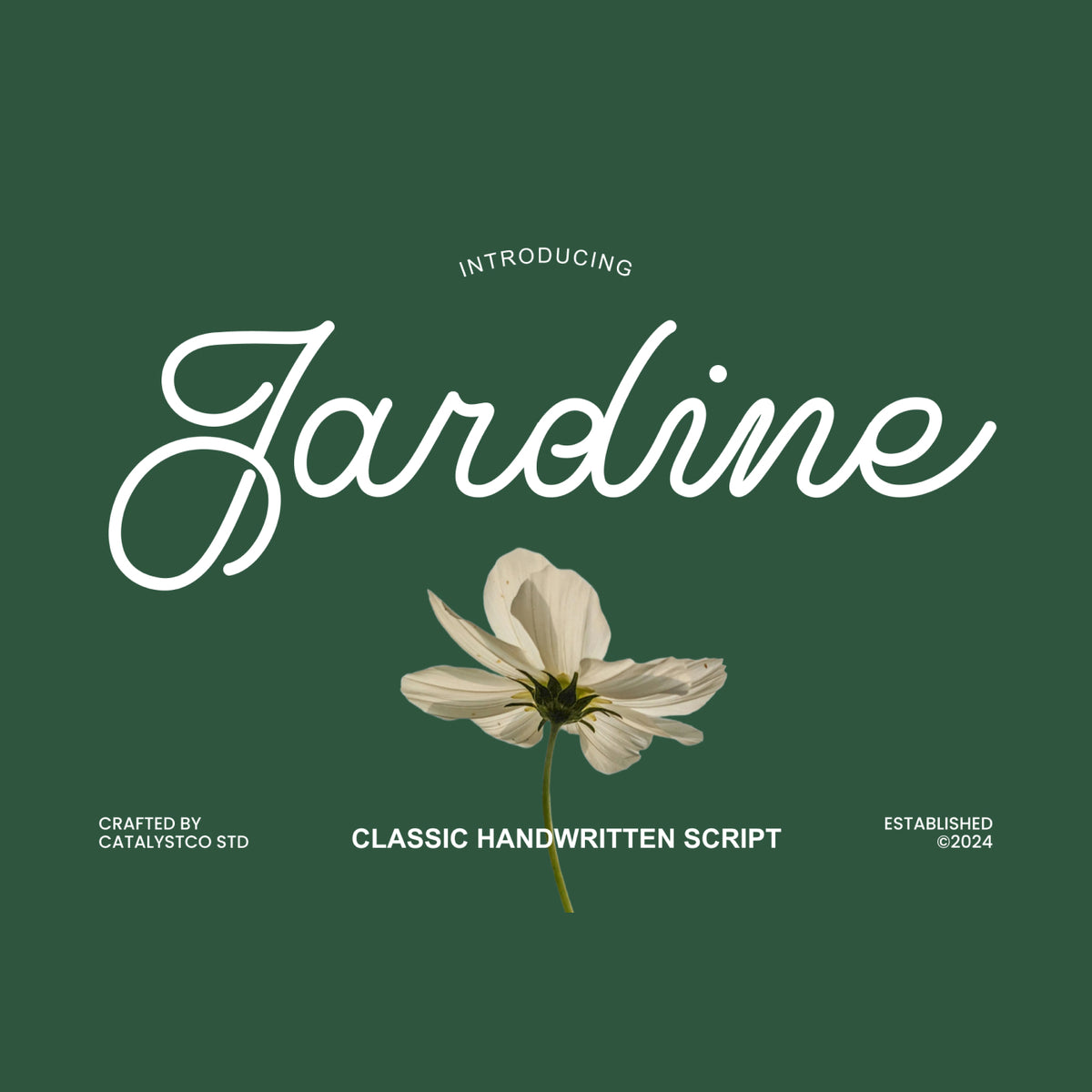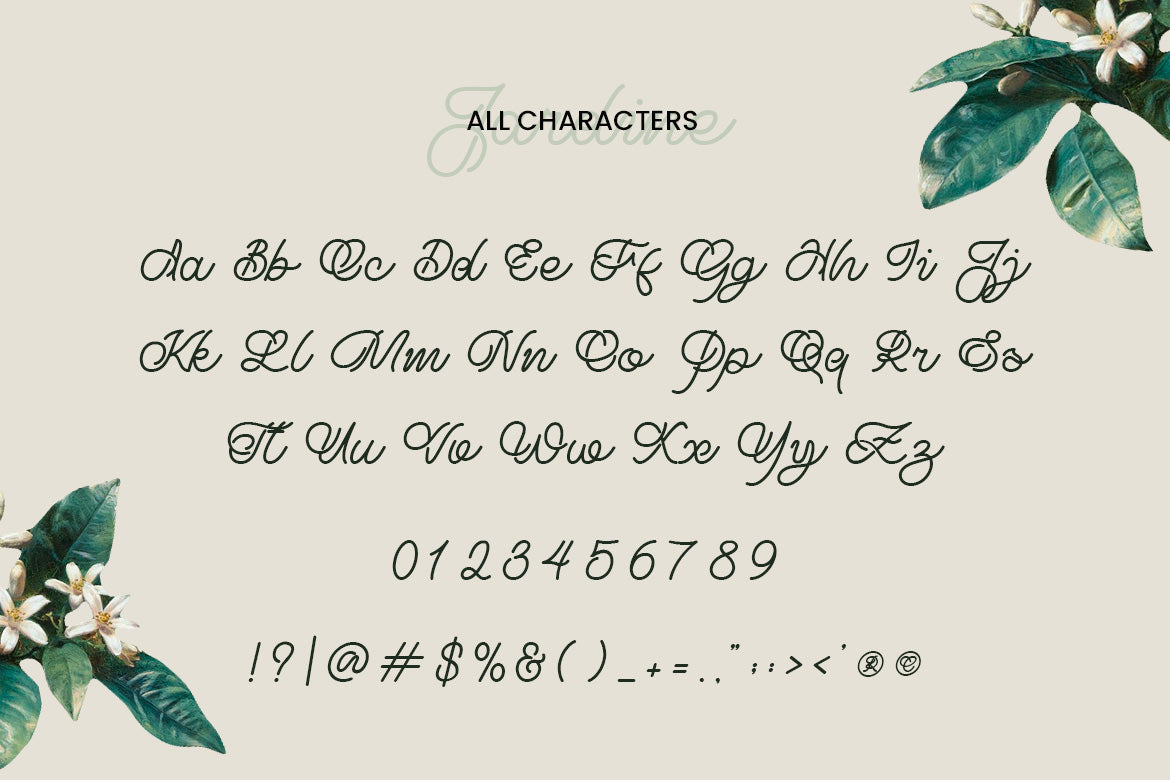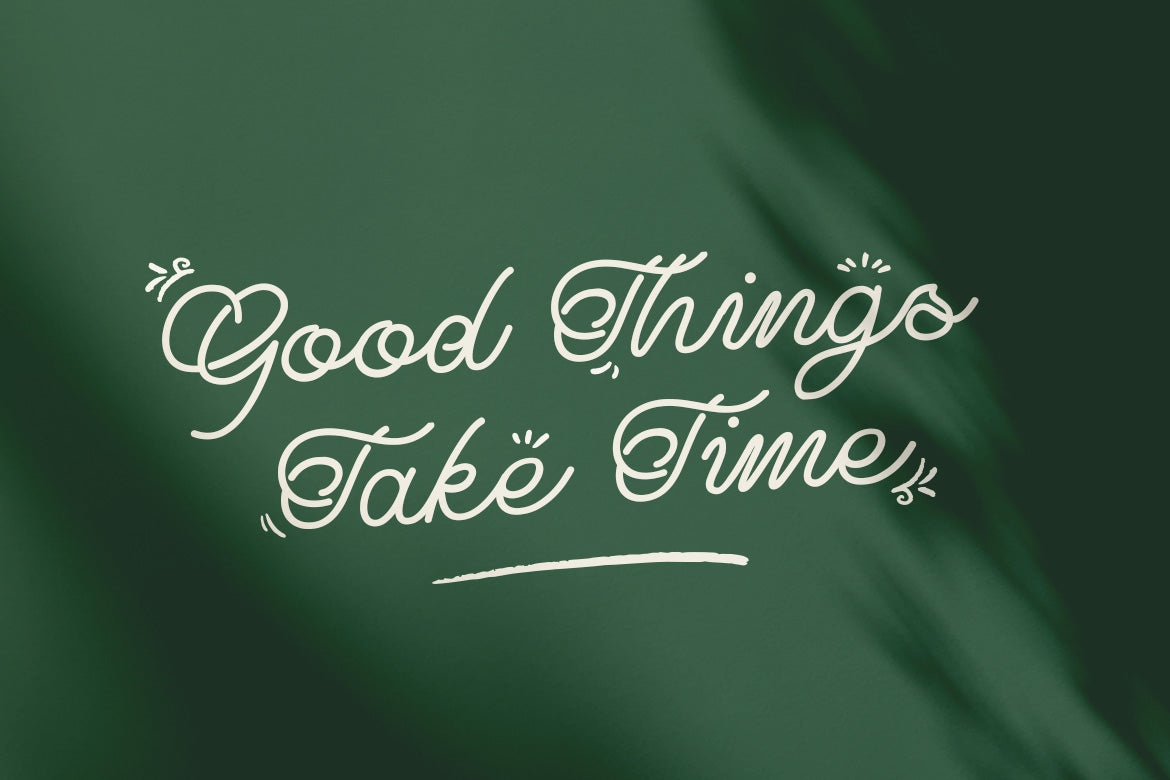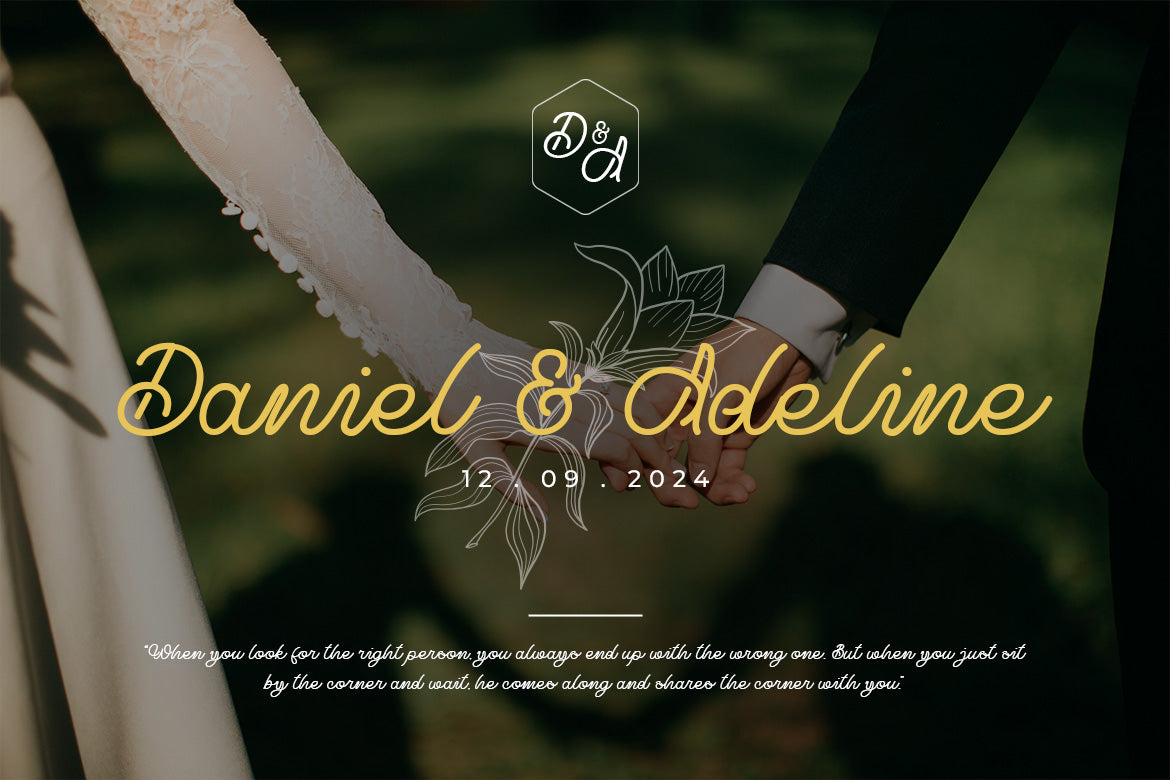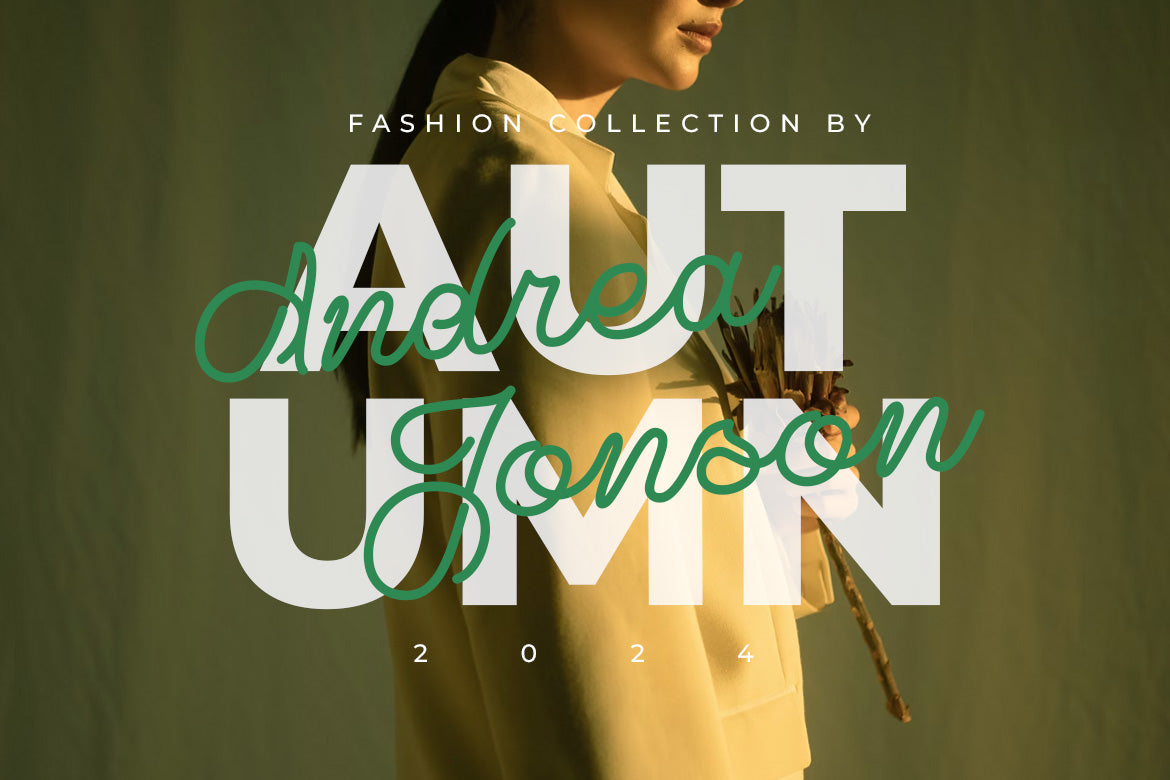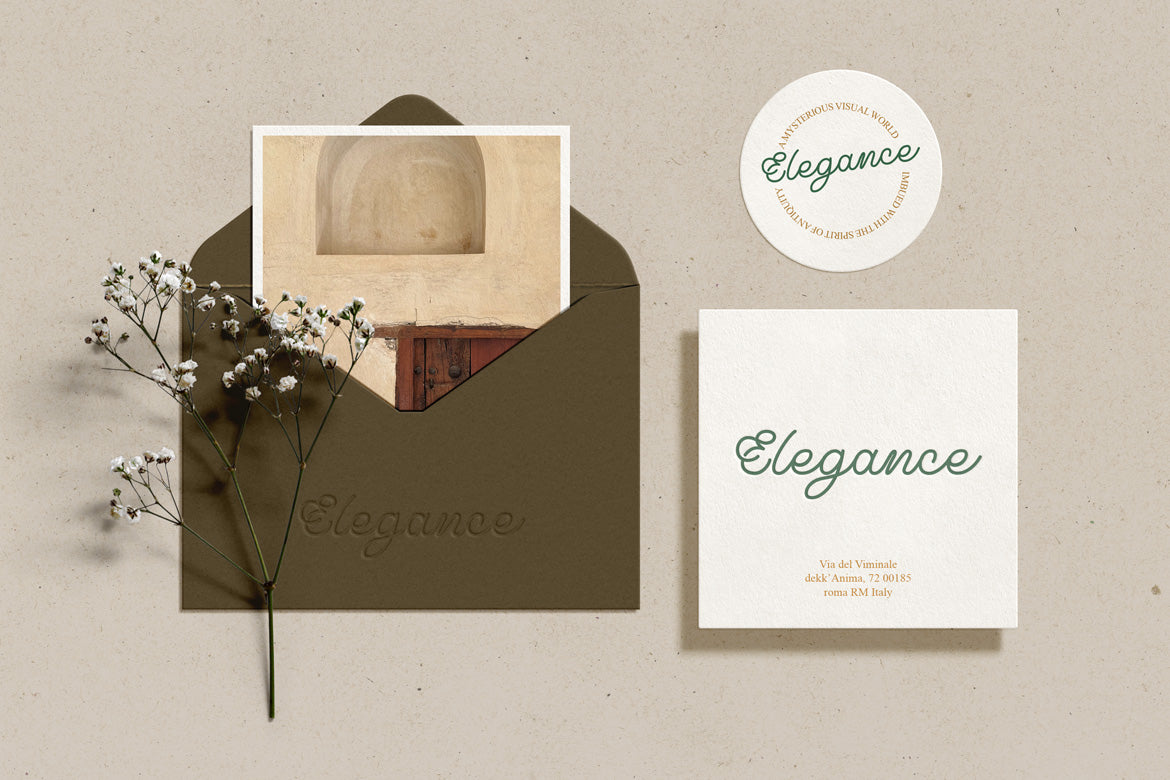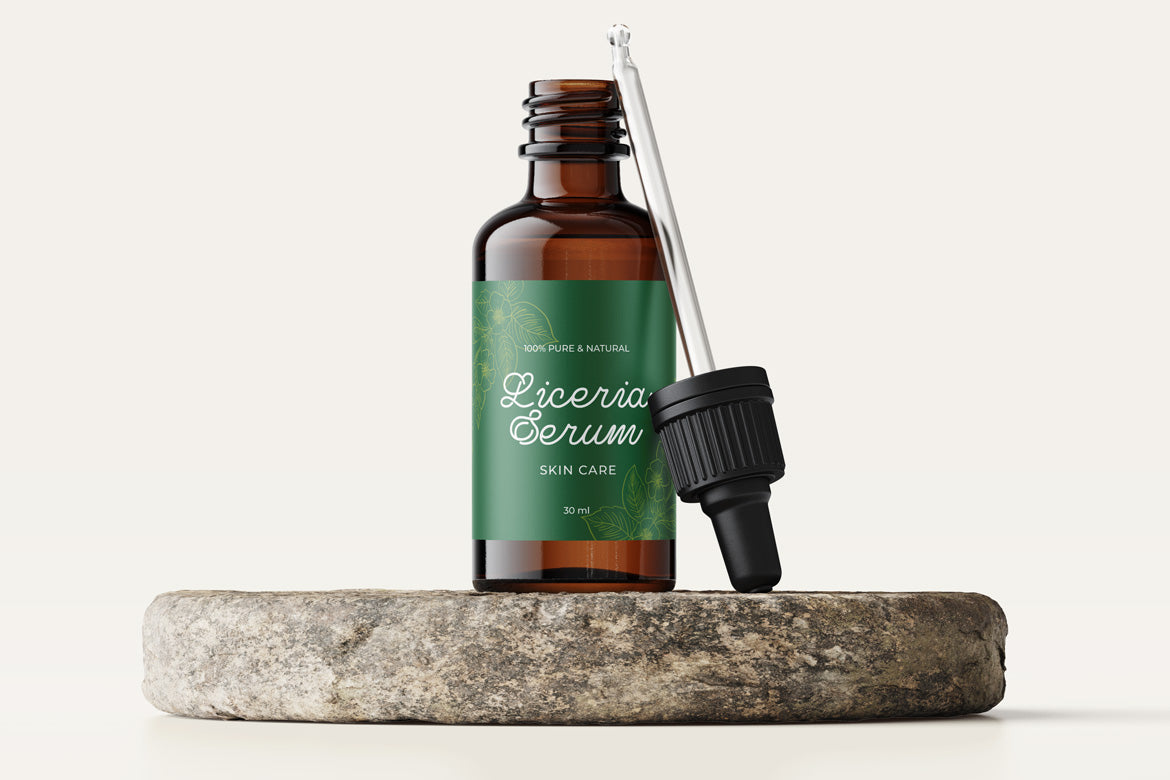
Jardine Classic Handwritten Script Font
Jardine Classic Handwritten Script Font is a classic handwritten script font featuring elegant curves, natural swashes, and a refined flow that brings sophistication to any design. Its style is perfect for wedding fonts, signature logo, feminine branding, or upscale product packaging. Jardine evokes timeless beauty and personal charm, ideal for designers seeking an authentic elegant script with a handcrafted feel. With multilingual support and graceful ligatures, Jardine is also a strong choice for invitations, stationery, and other luxury font needs with a soft, romantic aesthetic.
Jardine Classic Handwritten Script Font is a handwritten script typeface with uppercase and lowercase characters, ligatures, alternates, numerals, and punctuation. It is available in TTF, OTF, and WOFF formats and includes multilingual character support.